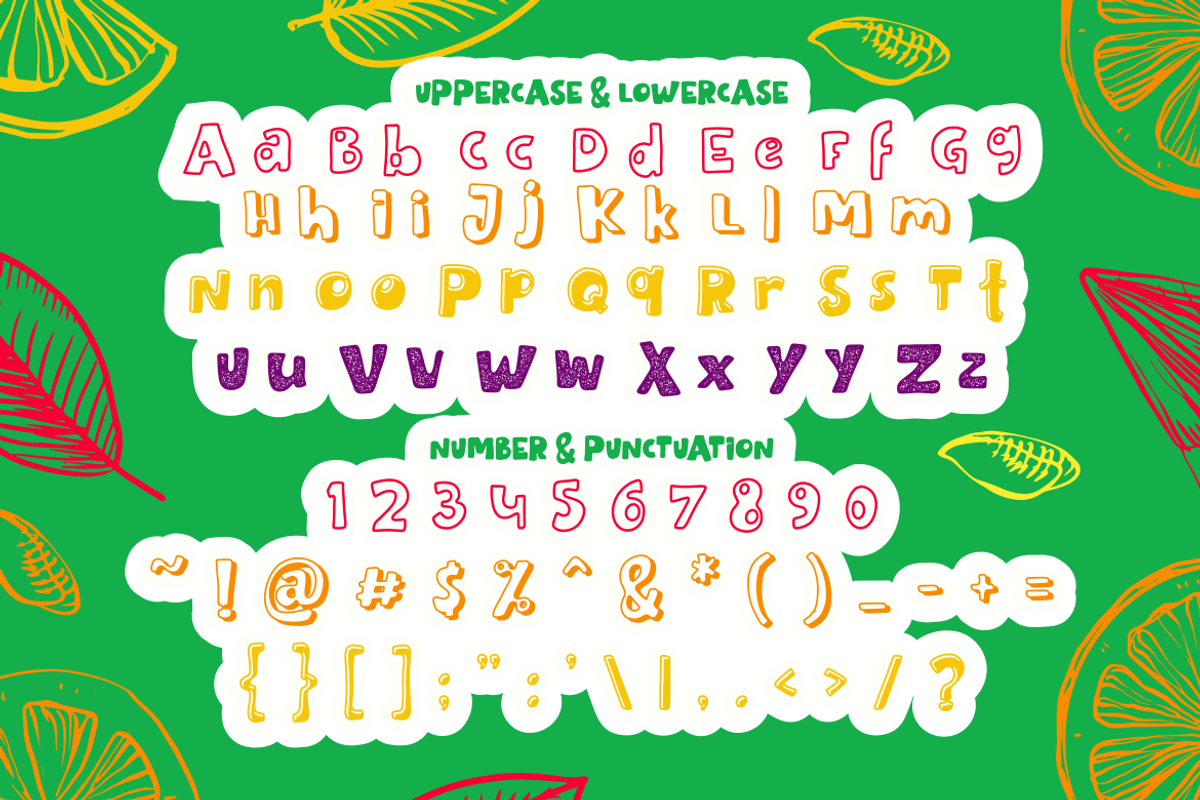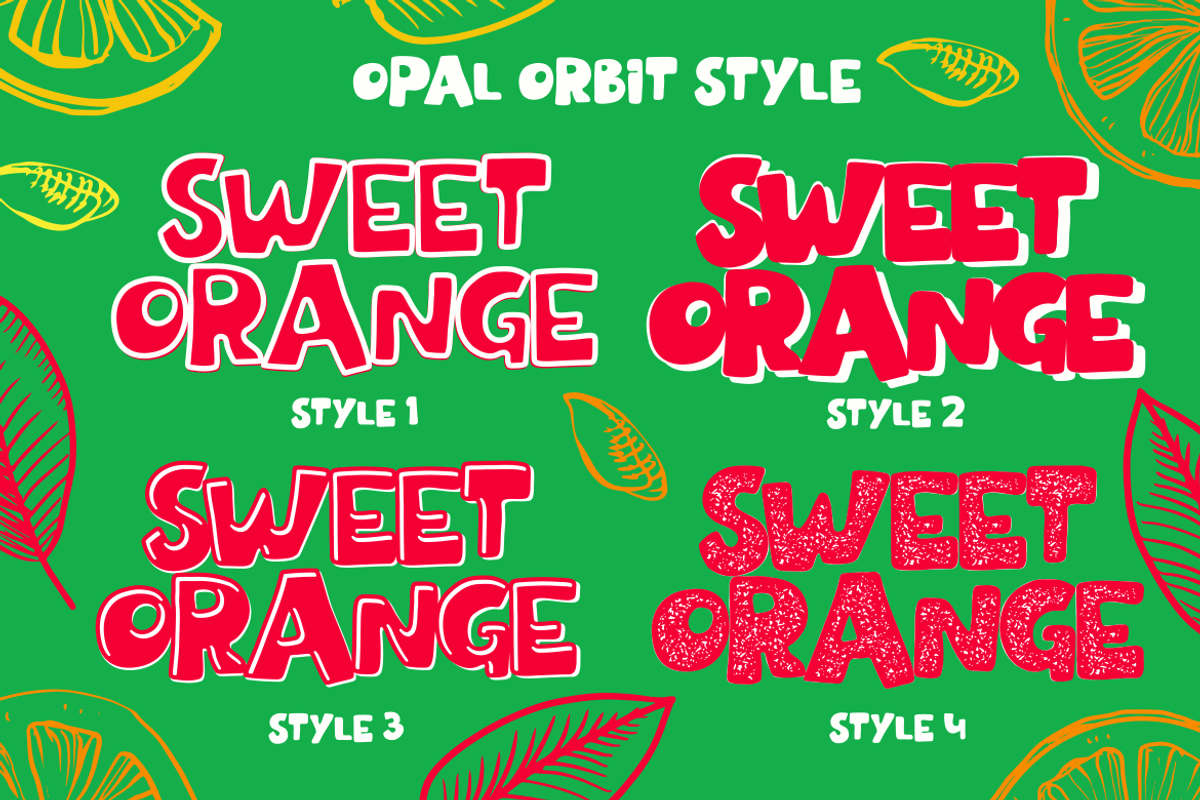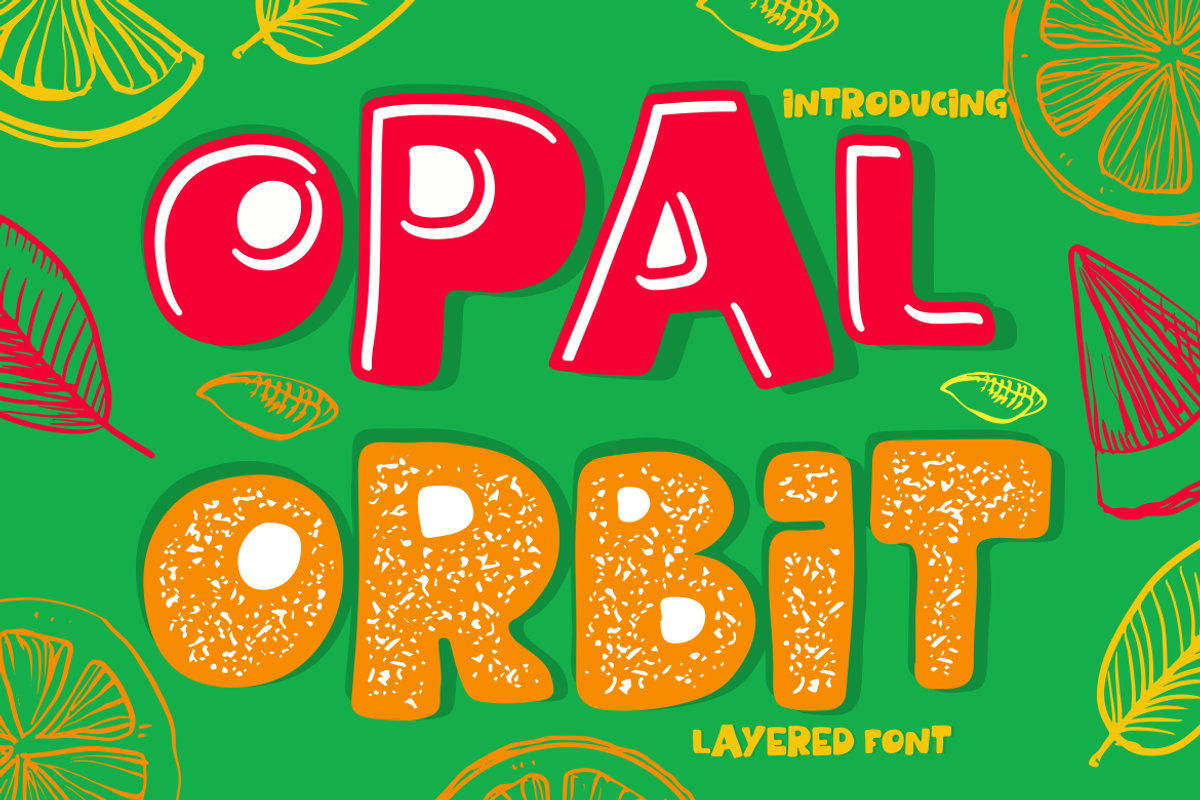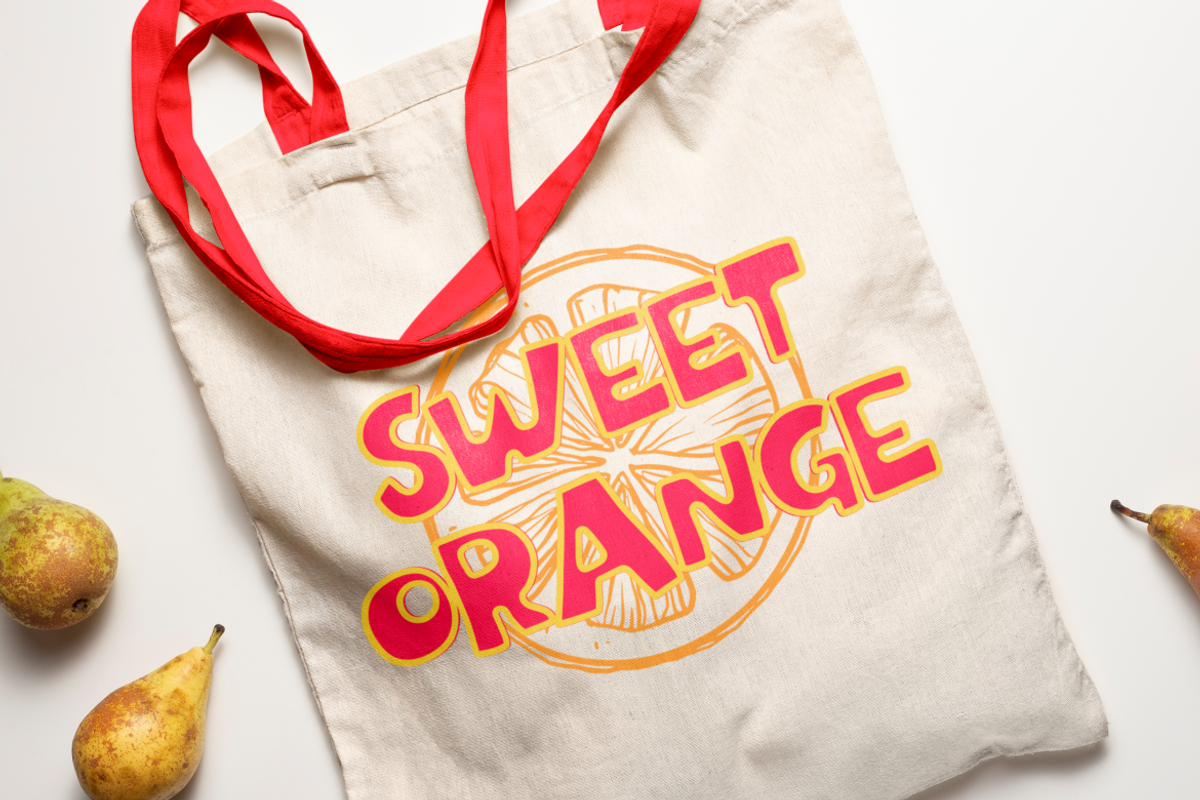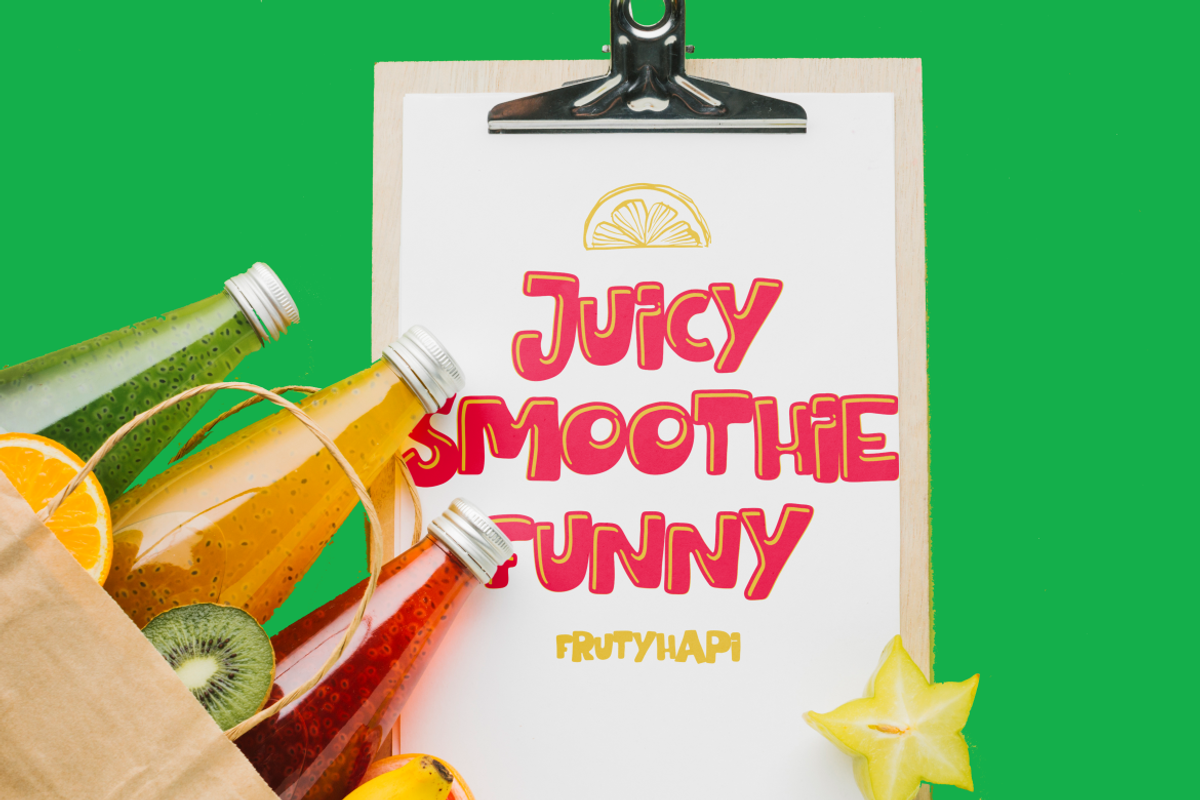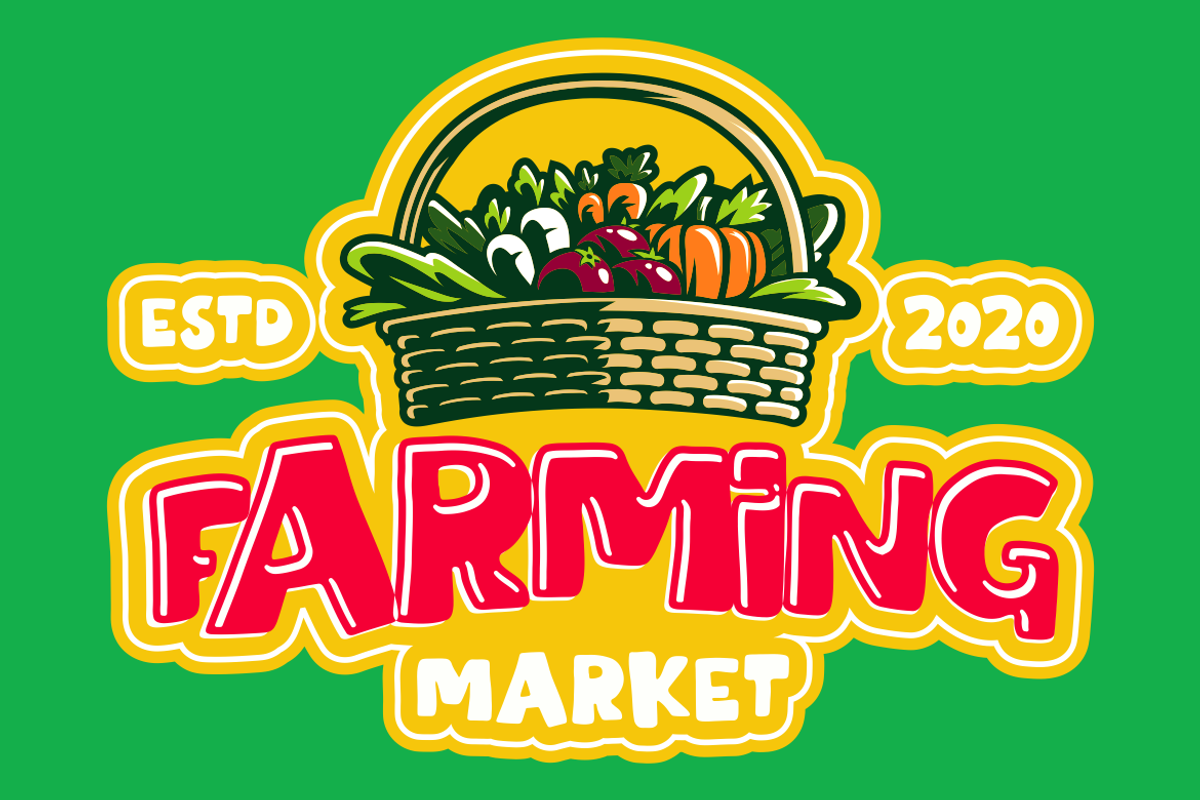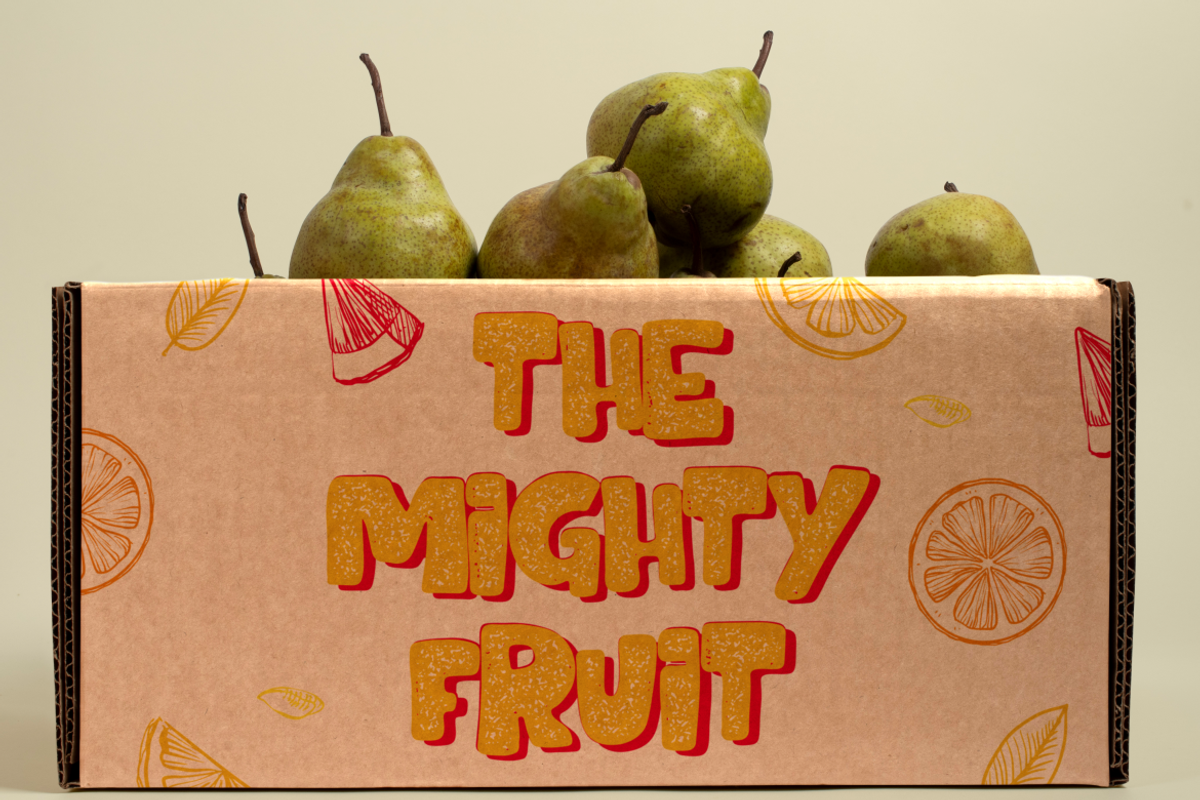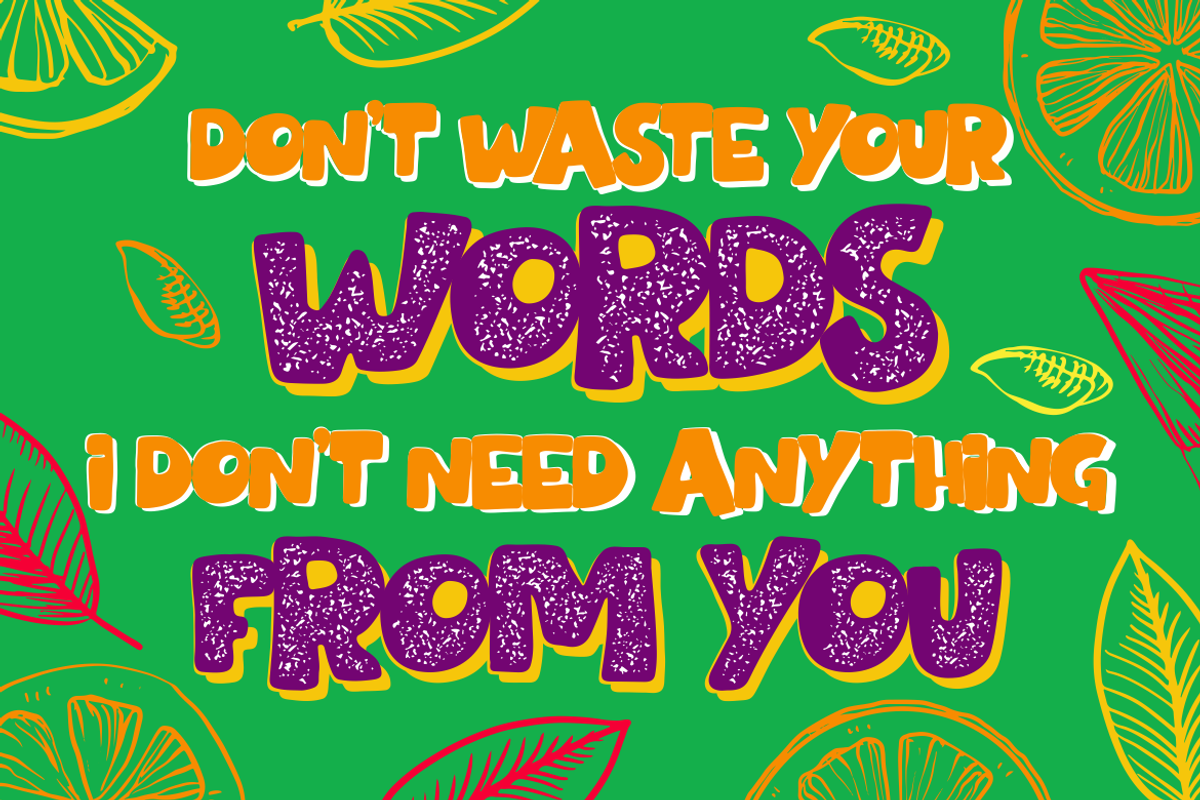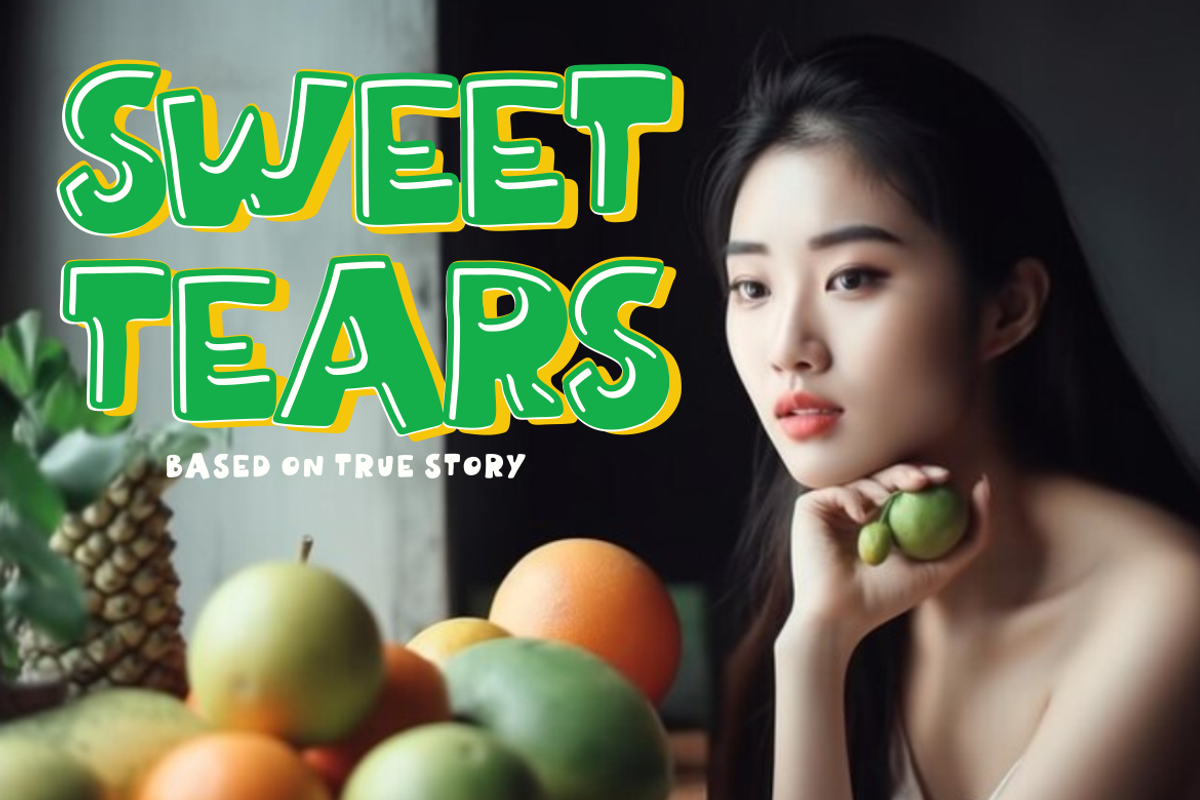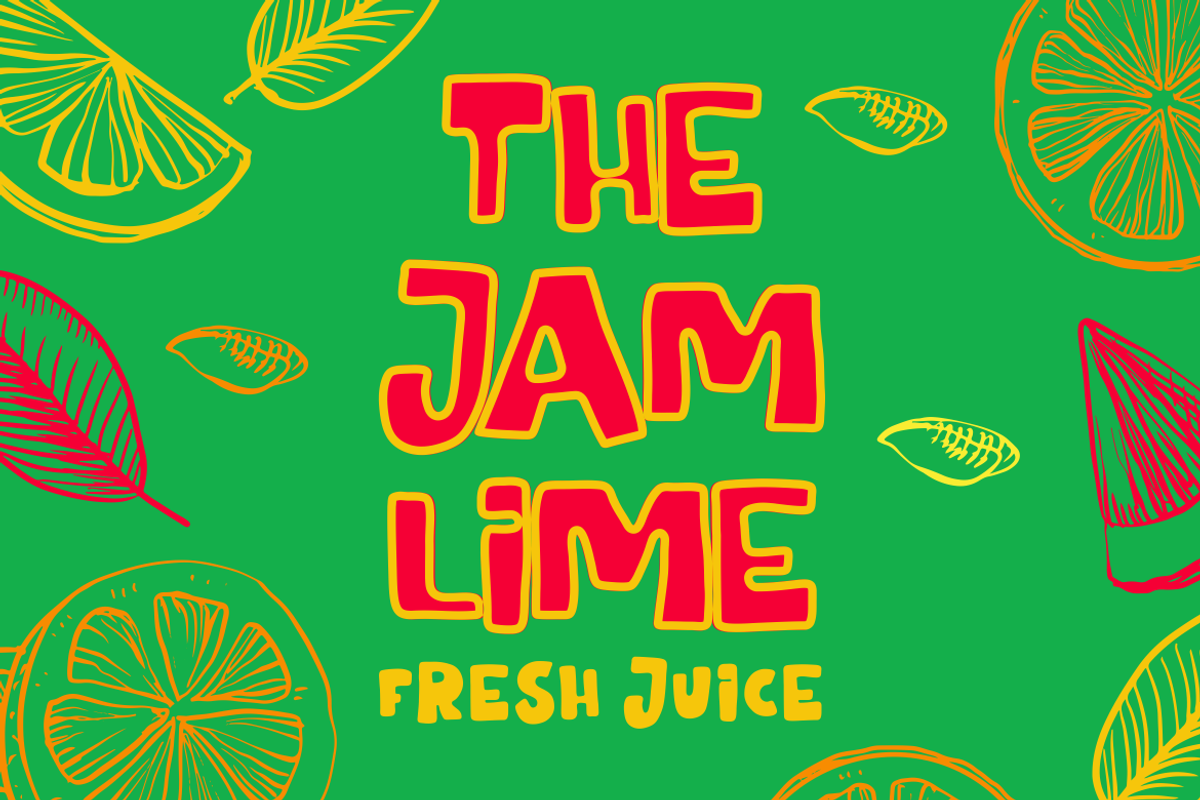
Opal Orbit - Layered Font
Opal Orbit is a layered font that captures the fun and whimsy of musical themes. This unique typeface is characterized by its bold, rounded letters and vibrant energy, making it a perfect choice for various applications. Whether used alone or combined with its nine thematic variations, Opal Orbit promises versatility and visual appeal.
Crafted with precision, each letter exudes a playful aura, resonating with the themes of childhood and crafting. The font is available in both OTF and TTF file formats ensuring compatibility and ease of use across different platforms. Its distinctive characteristics make it an excellent option for logos, branding initiatives, children’s themes, crafting projects, invitations cards, packaging designs, posters titles business communications greeting cards stickers children’s books magazines and other design needs aligned with its thematic elements.
Opal Orbit is not just a font; it’s an artistic tool designed to bring your creative visions to life. Every curve rounded edge thick stroke speaks volumes about its ability to make your designs stand out. Dive into the world where typography meets fun and let Opal Orbit be the catalyst for your next design breakthrough.